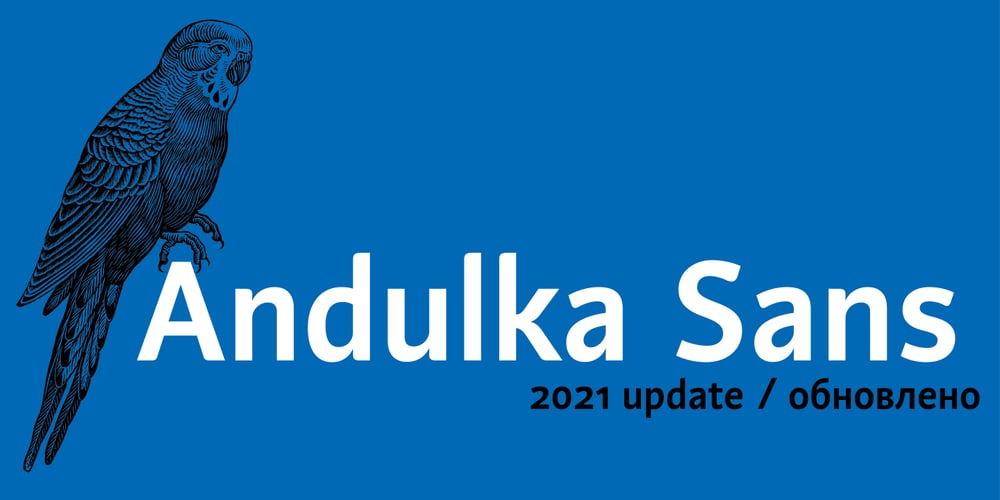
Andulka Sans Font Family was designed by František Štorm and published by Storm Type Foundry. Andulka Sans contains 11 styles and family package options. Andulka was drawn in 2004 for the purposes of publication and visual identity. Her peaceful expression also excels in poetry and fiction. It reads so smoothly that you won’t even know that its width proportion is actually narrowed, so it’s very suitable for magazines, newspapers and thickest volumes of scientific literature. Her serif counterpart is Andulka. The entire Andulka system can easily build a typography of the entire publishing house.